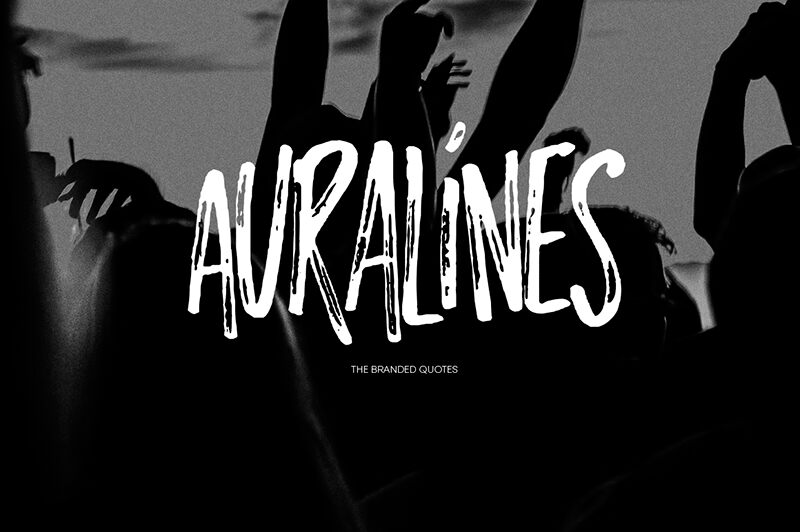
Auralines font by The Branded Quotes is a free brush font with a dynamic and expressive character. This typeface manifests smooth hand-drawing with excellent texturizing for a high-impact visual presence. In its modern and artistic style, Auralines reflects a bold, energetic, and informal appearance that triggers the viewer’s attention.
The font can make its role in posters, banners, billboards, headings, covers, social media, websites, branding, publishing, and advertising. Its unique personality also makes it fit for modern business or startup branding. Its artistic look can be exceptional for contemporary art-related projects.
Auralines is designed to meet the needs of expressive and natural-looking projects while avoiding exaggerated brush strokes. It draws inspiration from classic brush fonts, infusing them with a modern touch characterized by readable freehand strokes.
- Basic letters, numerals, and punctuation
- Ligatures
- Alternates